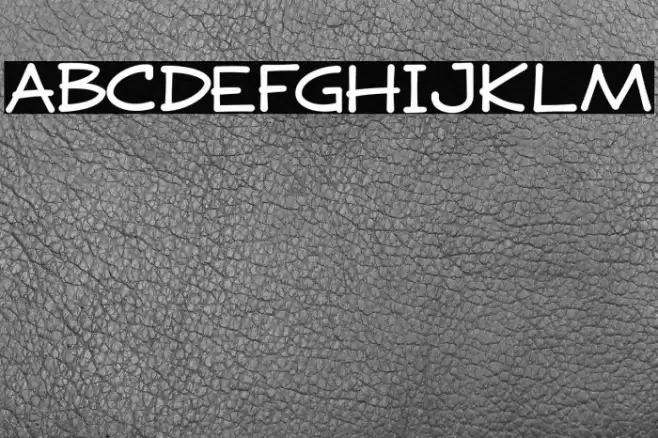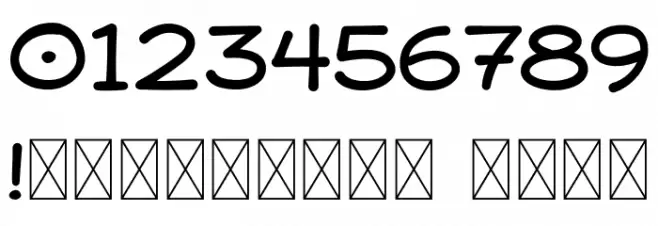
DOJO PEN MASTER DEMO Font
DOJO PEN MASTER DEMO Description
This font features a playful and informal style, characterized by its handwritten appearance. The letters have a casual, slightly irregular form that mimics the look of writing with a marker or pen. The strokes are smooth and rounded, giving the font a friendly and approachable feel. The uppercase and lowercase letters maintain a consistent style, with a slight slant that adds to the dynamic and lively nature of the font. The numerals are bold and clear, ensuring readability. Overall, this font exudes a sense of creativity and spontaneity, making it suitable for projects that require a personal touch.
A playful, handwritten-style font with smooth, rounded strokes from Comic fonts.
- Proposed Projects: Ideal for children's books, casual invitations, greeting cards, and creative branding.
- Overall Style: Casual
- Use Case: Headlines, Informal text, Creative projects